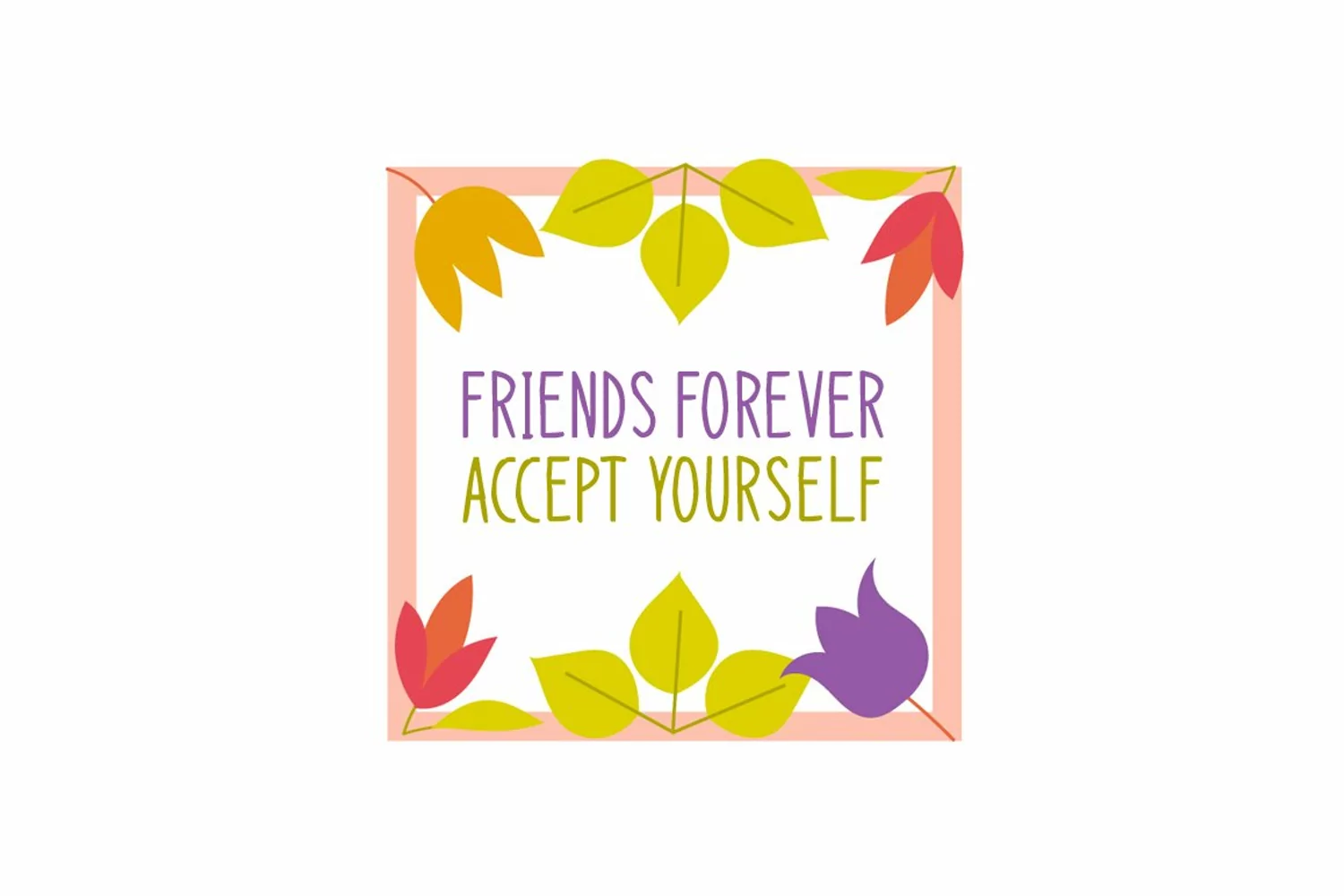
Introducing Perfectly Fabulous!
Perfectly Fabulous is a brand new handwritten font. Perfectly Fabulous is perfectly suited for stationery, logos, t-shirt, paper, print design, website header, photo frame, flyer, music cover, poster, image slider, and much more.